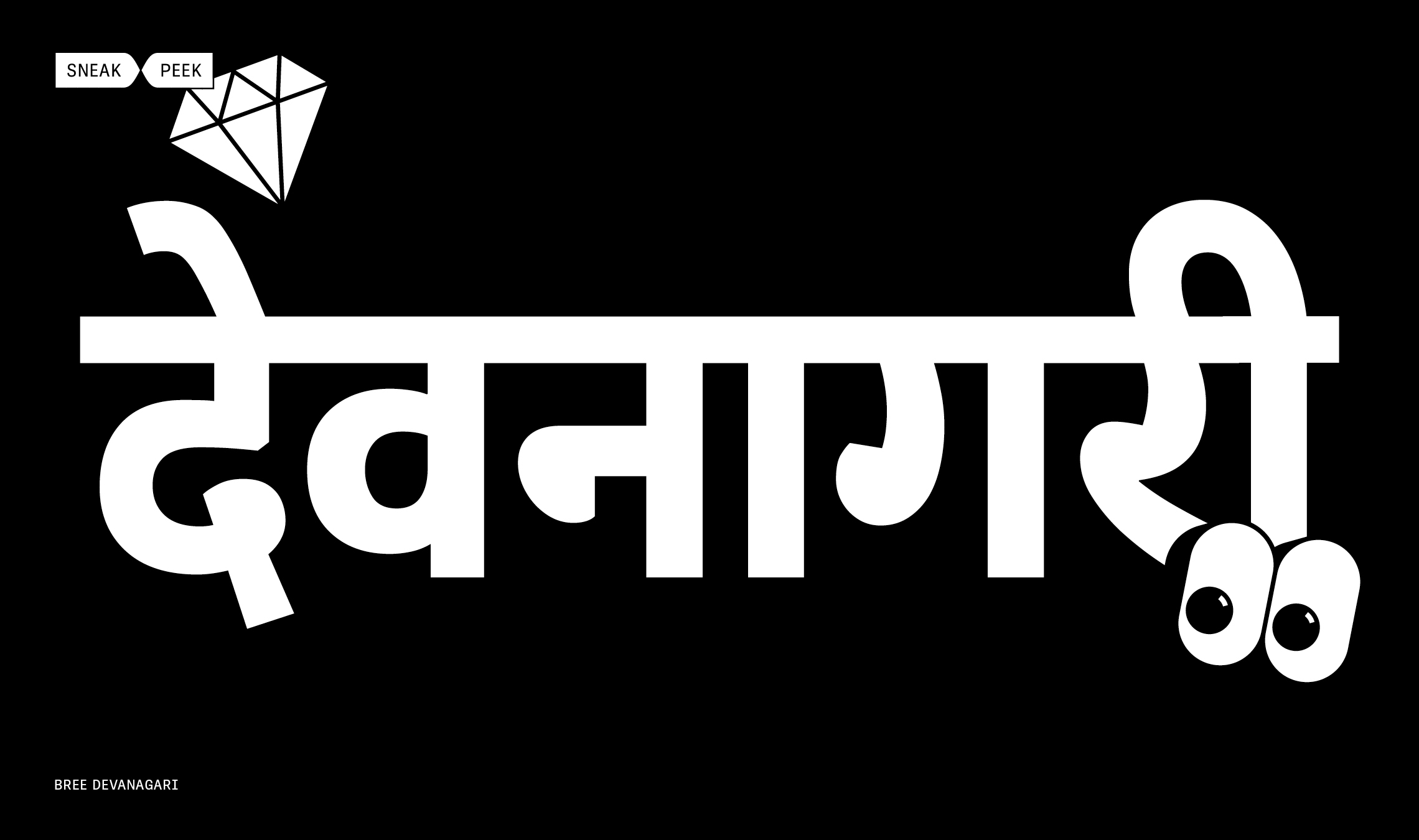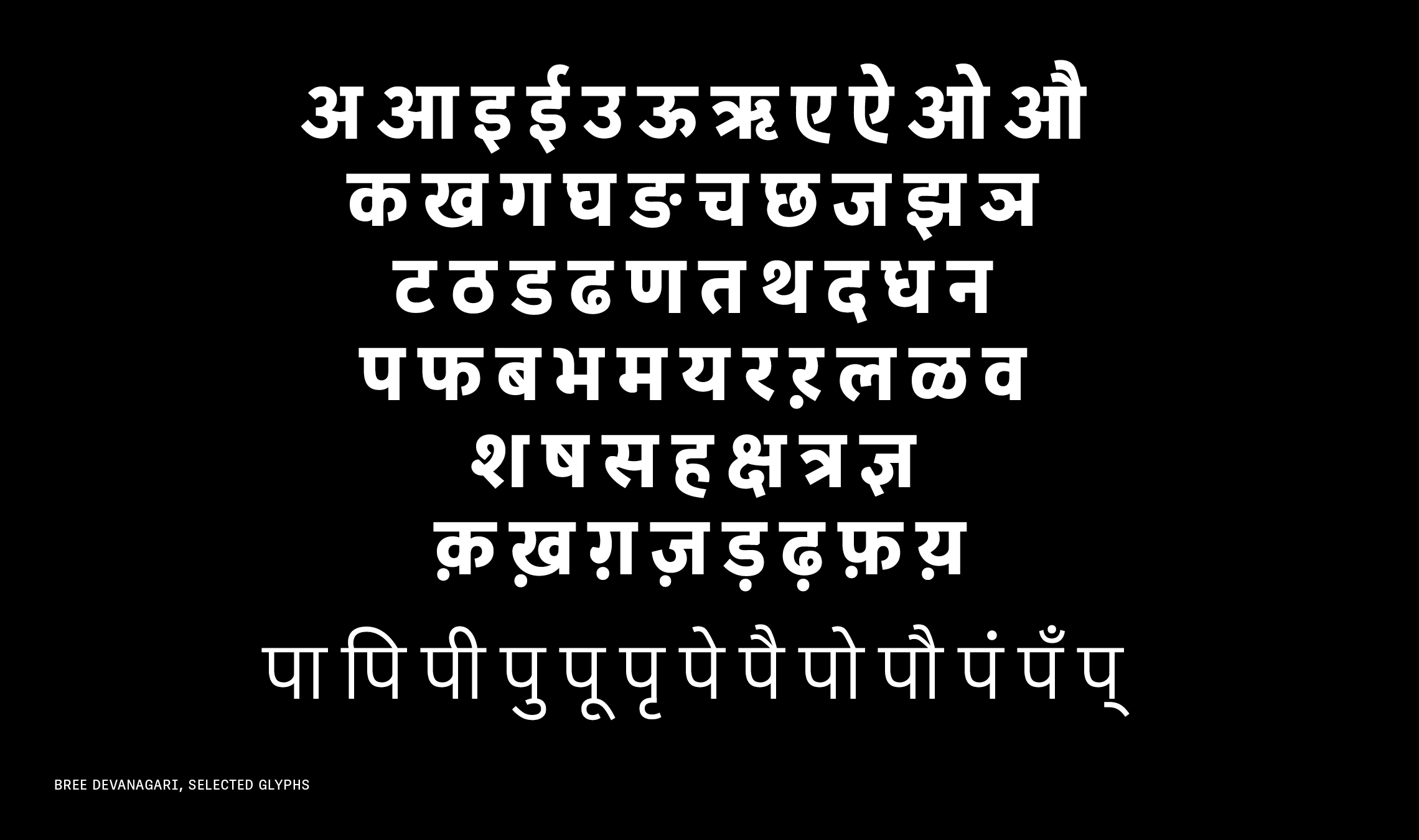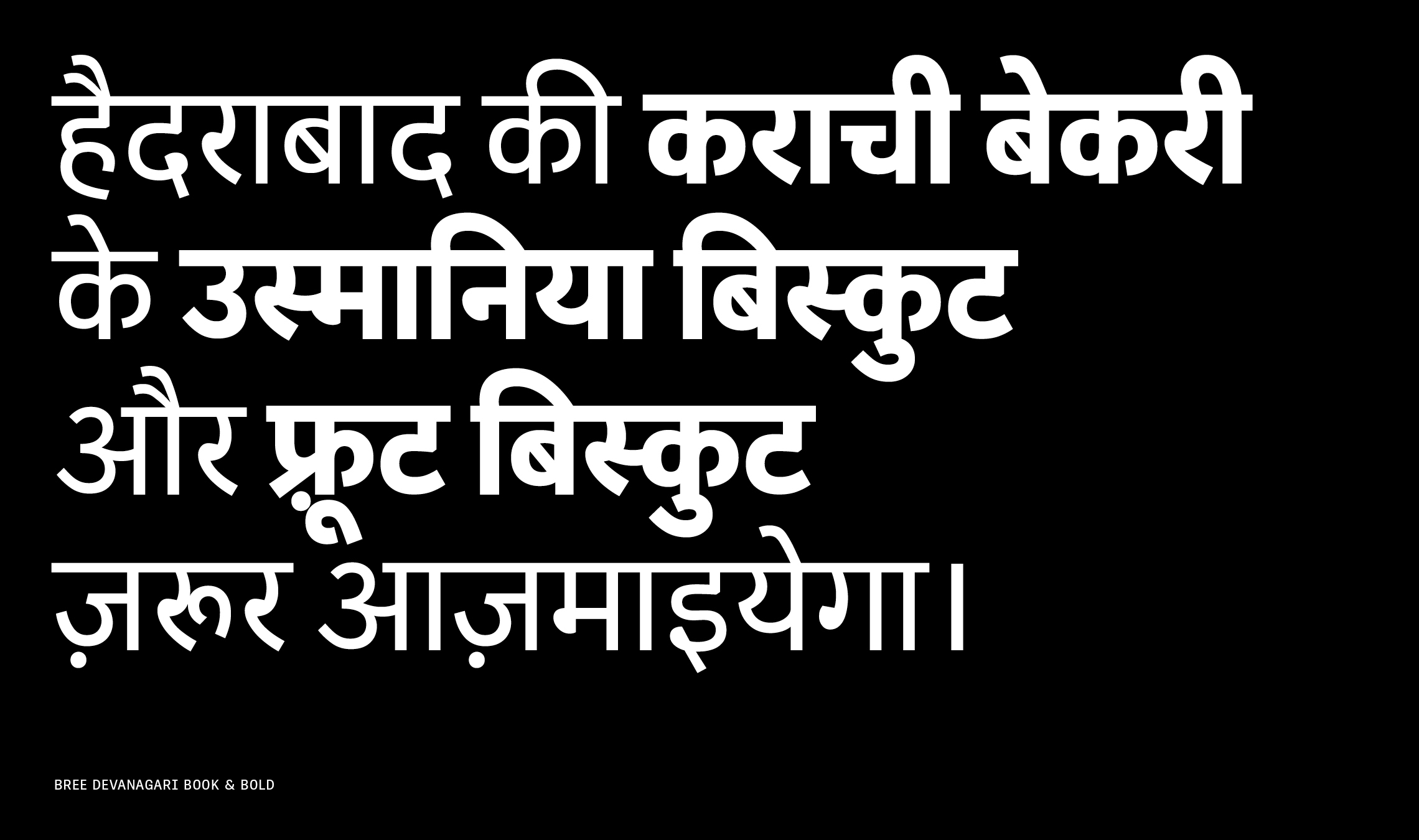
Bree Devanagari के रसीले बोल, coming soon
Next week we will release Bree Devanagari, an interpretation of one of our most popular type families in the most widely-used writing system in India. To set off your typographic sweet tooth, here’s a sneak preview of this friendly Devanagari voice with a poised rhythm and big-hearted extrabold.
In Latin, Bree has met with near-universal acclaim for its versatility, especially for branding, logos, packaging, and signage. With its seven weights and extensive range of stylistic alternatives, we think Bree Devanagari will be ideal for these purposes and more.